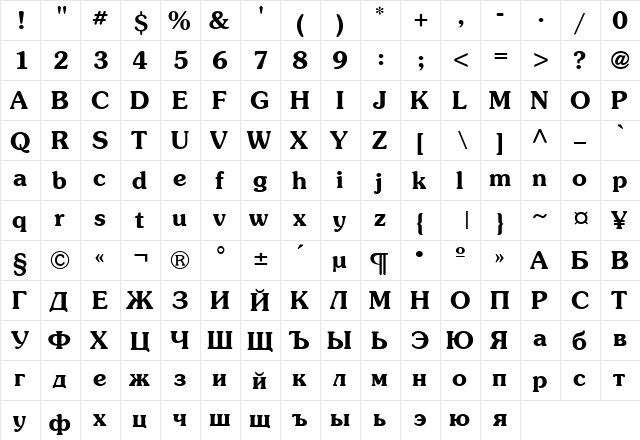
AG_Souvenir Bold Font Preview
AG_Souvenir Bold
Design Context for AG_Souvenir Typeface
AG_Souvenir offers clean, dependable letterforms without strong stylistic allegiance, making it a practical choice for designers who need flexibility. The heavy weight commands attention and anchors typographic hierarchies.
Pro Tip: Use AG_Souvenir in both headline and body roles to test its range before committing to a single application.